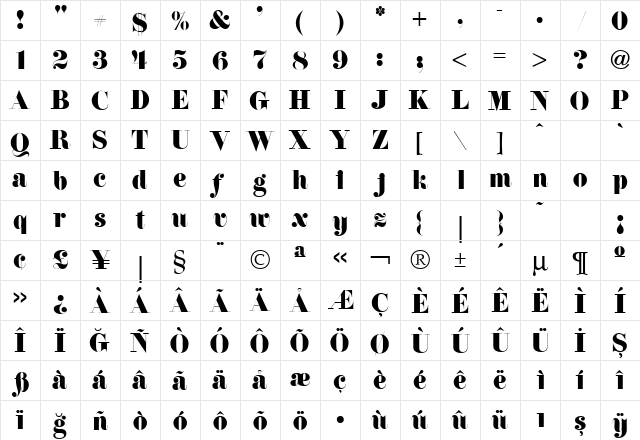
TR Firenze ITCNormal
Design Context for TR Firenze Typeface
TR Firenze is a composed and adaptable typeface that performs quietly and consistently across a wide range of design contexts.